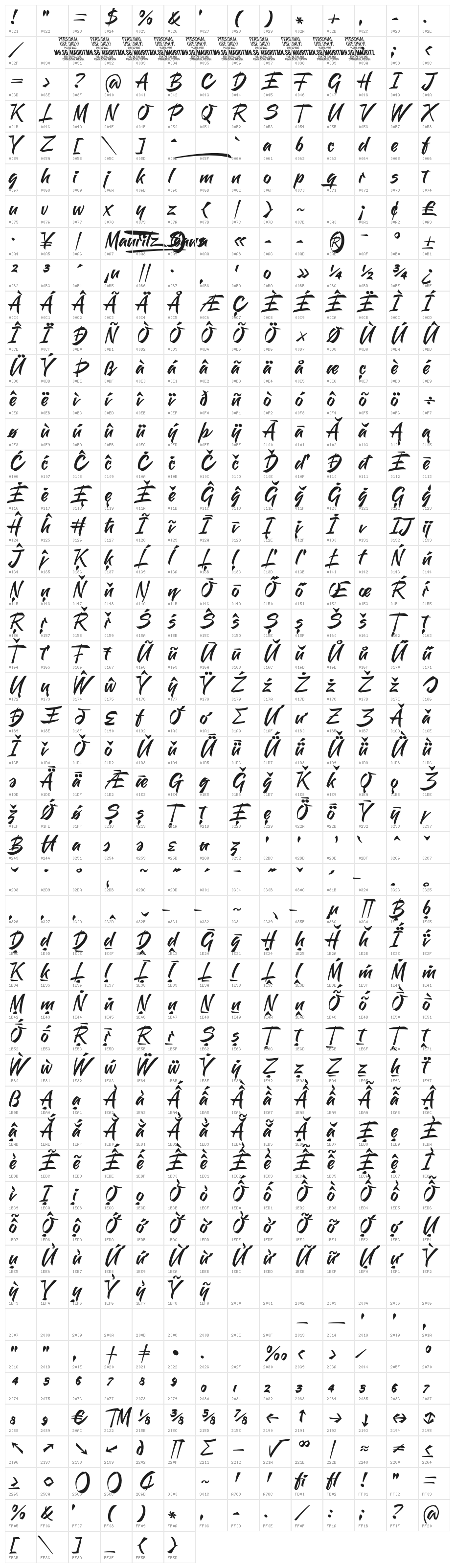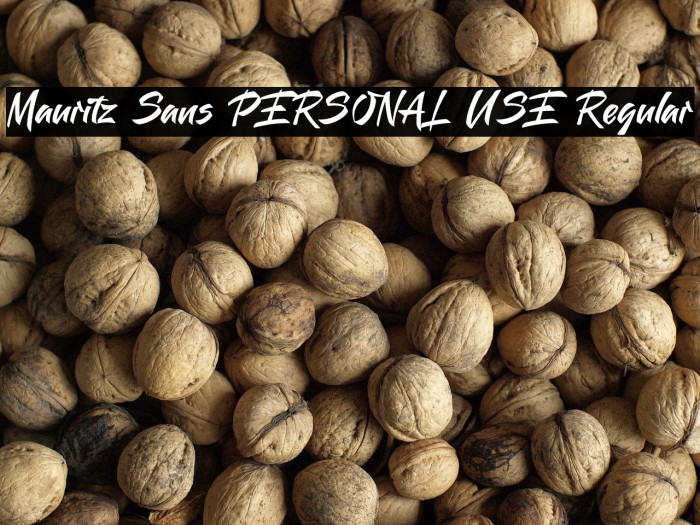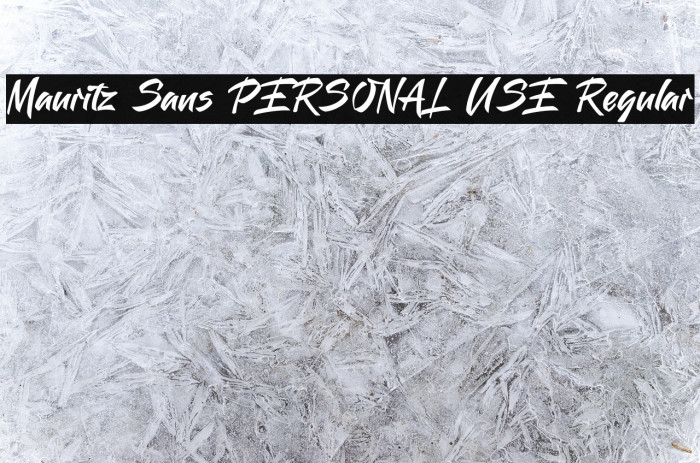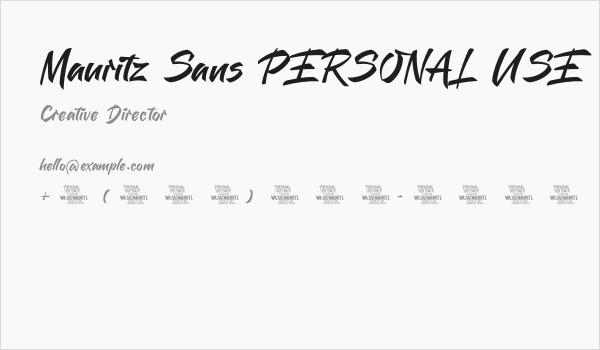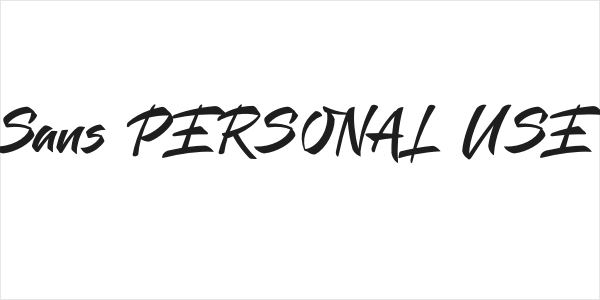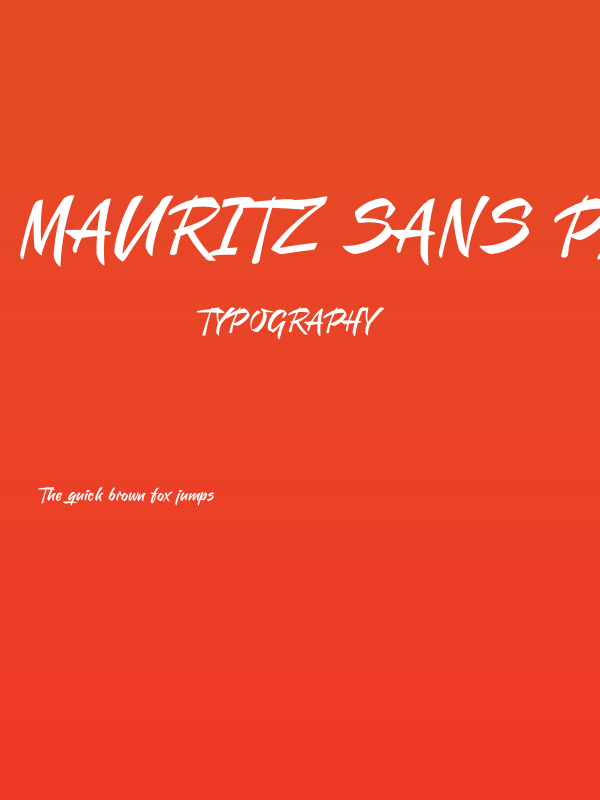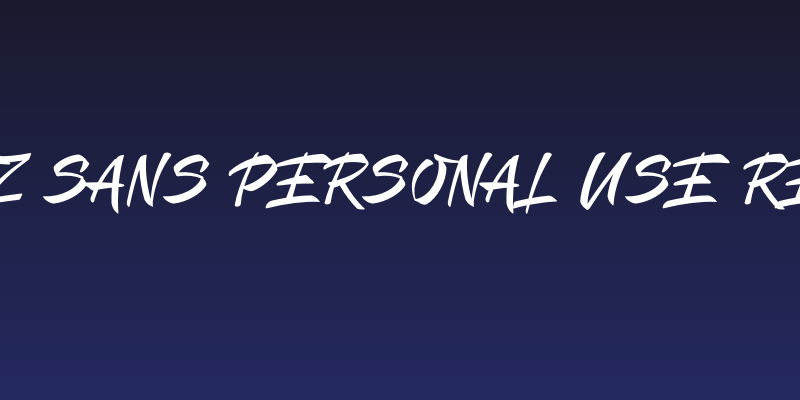
Mauritz Sans PERSONAL USE Regular Font
Mauritz Sans PERSONAL USE Regular Description
This font features a dynamic and energetic script style, characterized by its bold and flowing letterforms. The uppercase letters exhibit a strong presence with sharp angles and fluid curves, while the lowercase letters maintain a consistent rhythm, enhancing readability. The numbers and special characters are crafted with the same attention to detail, ensuring a cohesive look across all glyphs. The overall design exudes a sense of movement and modernity, making it suitable for projects that require a lively and engaging typeface.
Proposed ProjectsIdeal for branding, posters, social media graphics, and any project needing a lively and modern script.